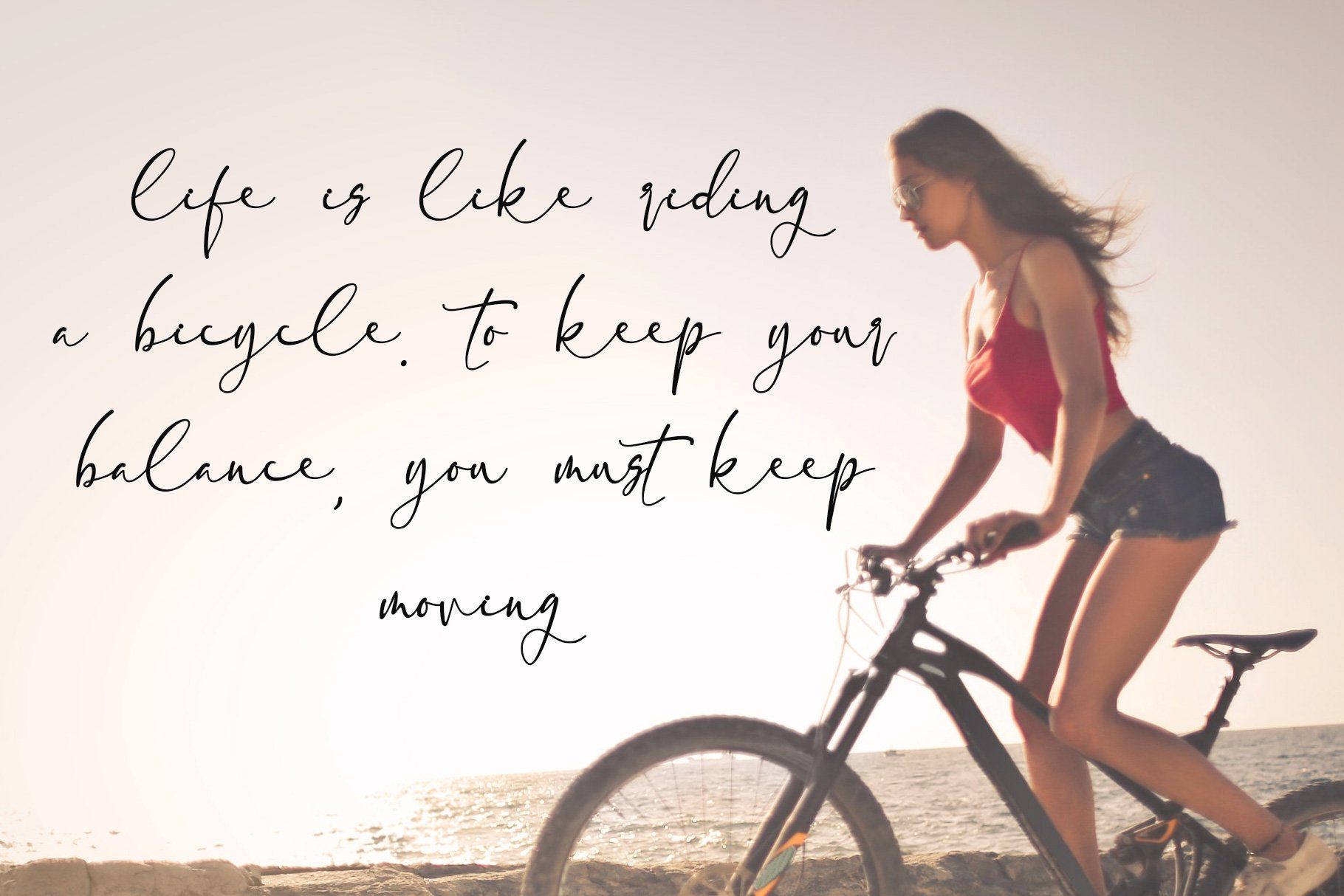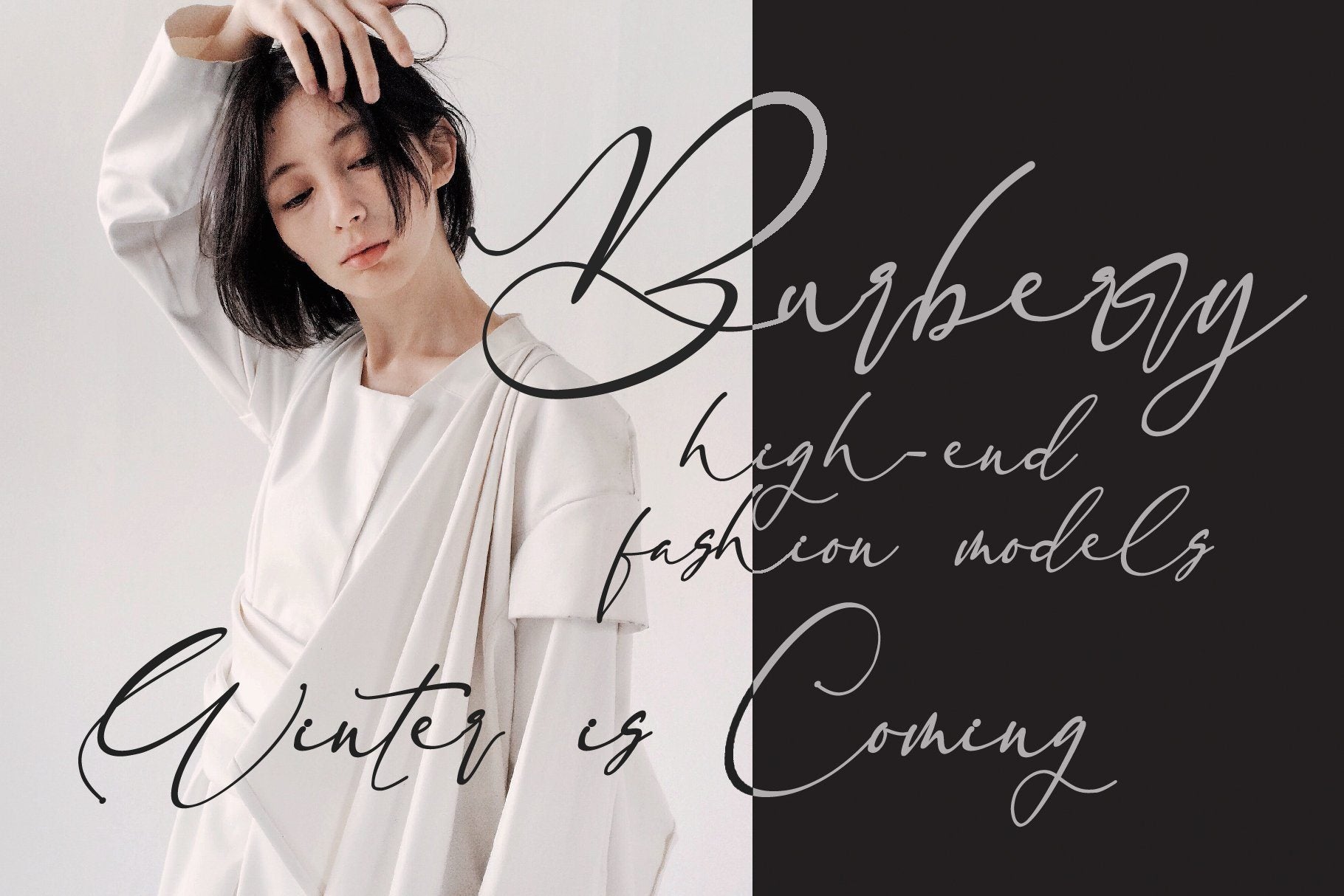
About MARIAGATA
Inspired by modern caligraphy, Mariagata is a mixture of copper calligraphy with handlettering style. Designed to bring style elegance, sensual, glamorous, simple and very readable typeface. Features : – Upper Case & Lowercase – Numerals – Punctuations (OpenType Standard) – Accents (Multilingual characters) – Ligatures, Titling, and Swash – Works on PC & Mac – Simple installations – Accessible in the Adobe Illustrator, Adobe Photoshop, Adobe InDesign, even works on Microsoft Word. don’t wait anymore, put it in your shopping basket 🙂 and follow me, because there will be many promos! Our other products : BEST SELLER BLACK PINK SIGNATURE ANDORA BRIGITTA HEANFFE EIFFEL IN LOVE ( FONT TRIO) BLACK PINK SUMMER HONG KONG ANGEL MALEFICENT California Street BESTOWENS FAMILY